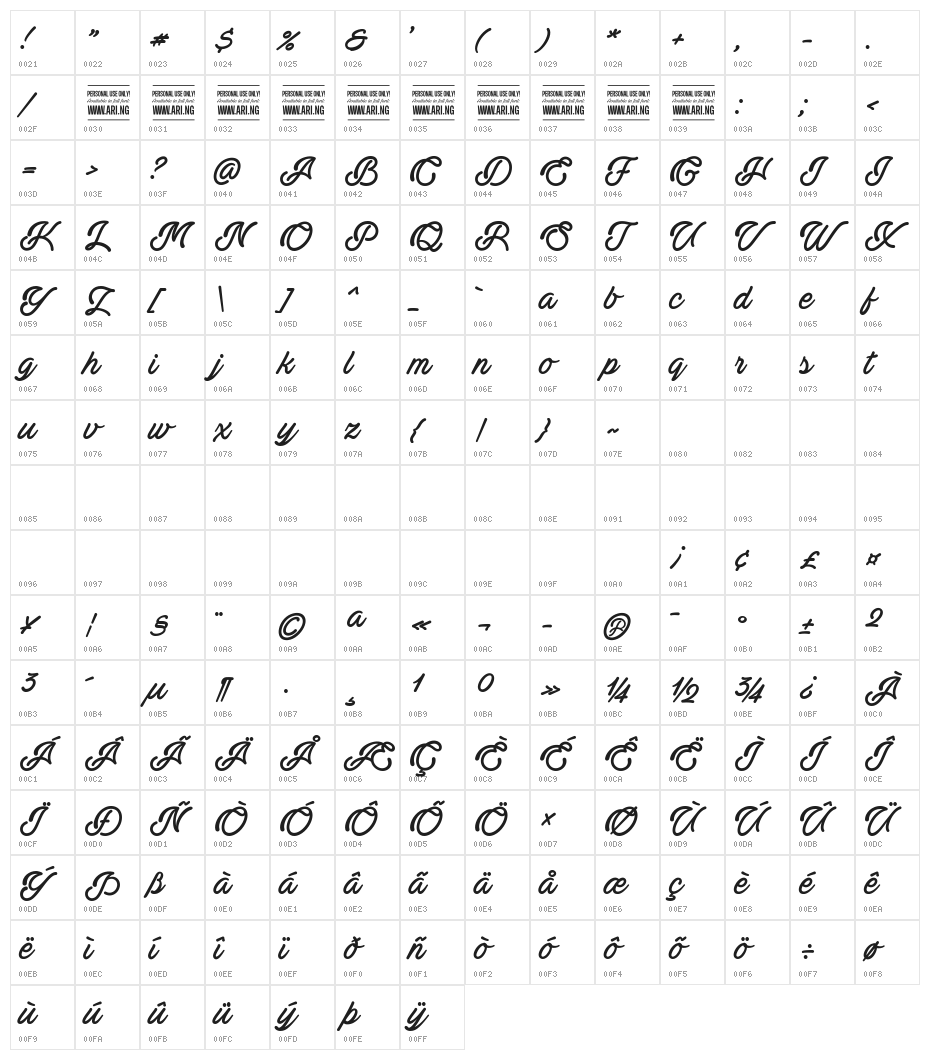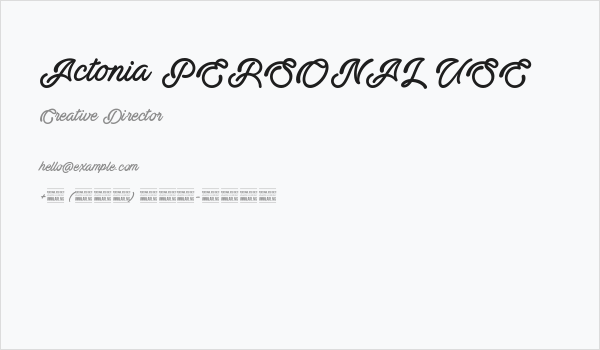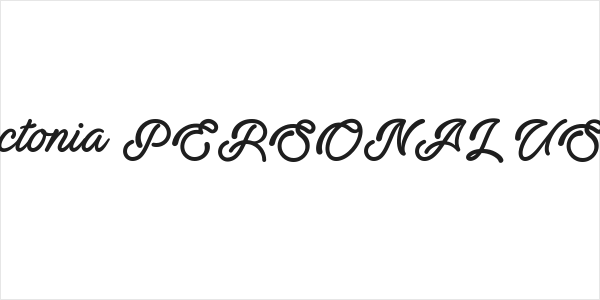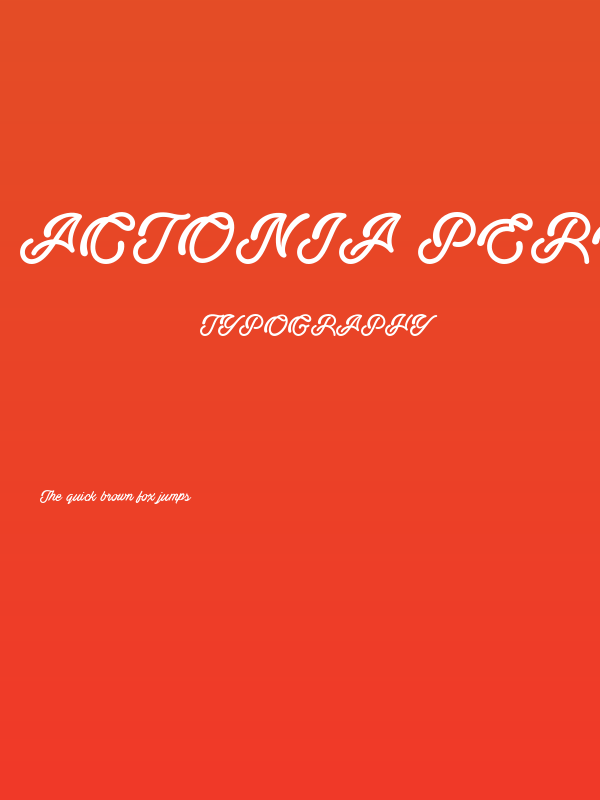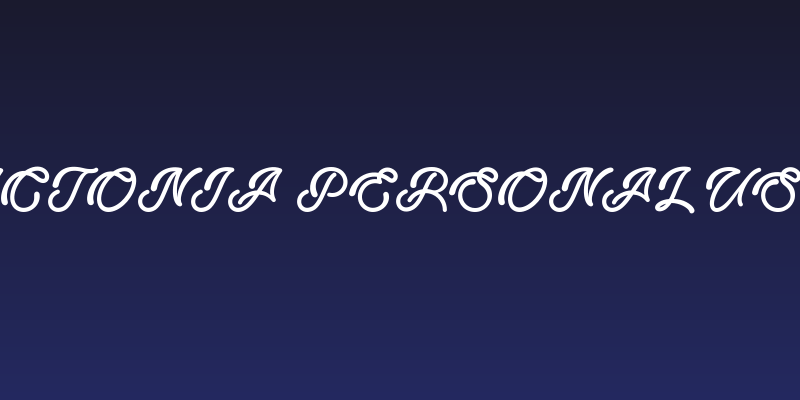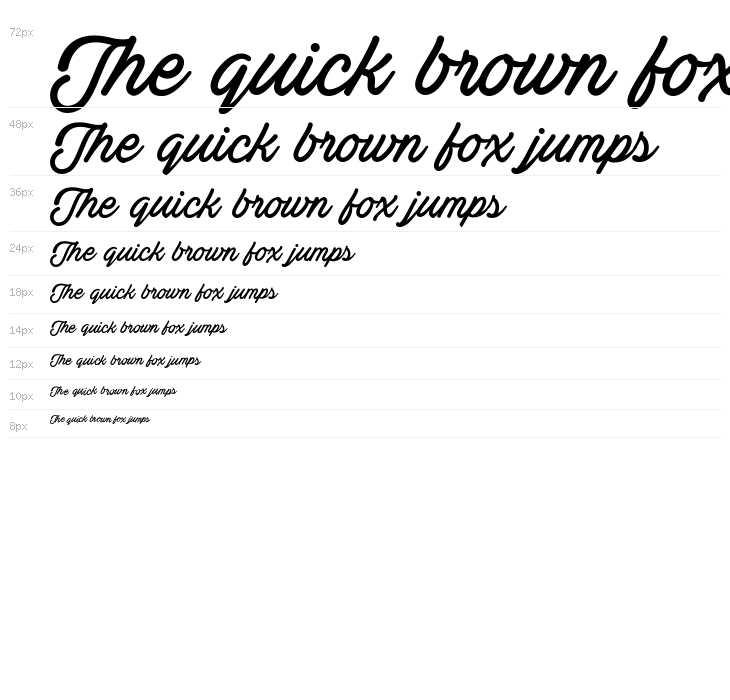
Actonia PERSONAL USE Font
Actonia PERSONAL USE Description
This font presents a flowing, cursive style that exudes elegance and sophistication. The letters are interconnected with smooth, sweeping curves, giving it a handwritten appearance. The uppercase letters are slightly more ornate, with additional flourishes that enhance their decorative appeal. The lowercase letters maintain a consistent rhythm and balance, making them highly legible despite their script nature. The numbers and special characters follow the same stylistic cues, ensuring a cohesive look across all text elements. This font is ideal for projects that require a touch of class and personality.
Overall StyleElegant, Decorative
Use CaseLogos, Invitations, Decorative text
Proposed ProjectsIdeal for wedding invitations, greeting cards, branding, and elegant packaging designs.